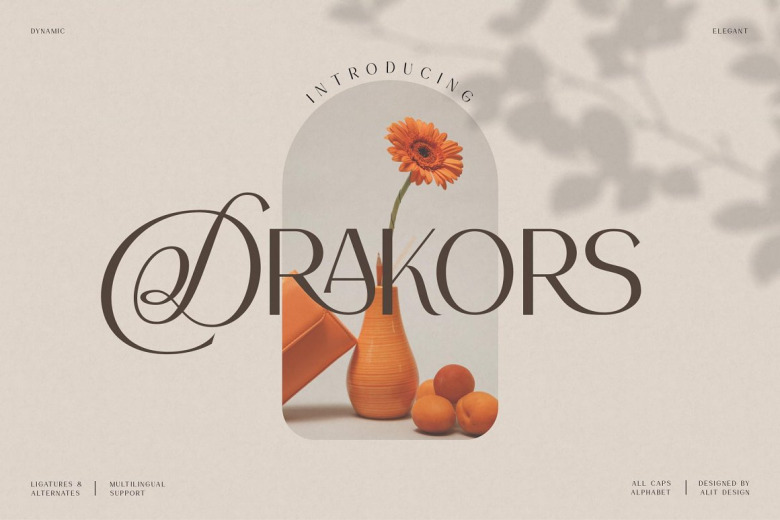
Drakors Font
It has been created by combining an elegant script and a simple, yet strong serif font style DRAKORS Font. This is a modern serif style font with script-style beautiful letter makes the DRAKORS font unnameable and different from any other fonts in your computer collection.
Drakors Serif Font